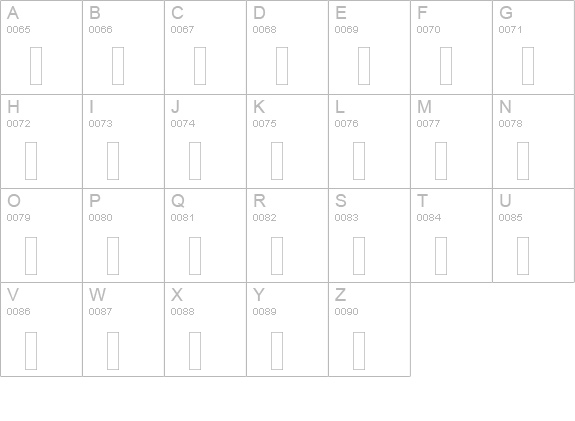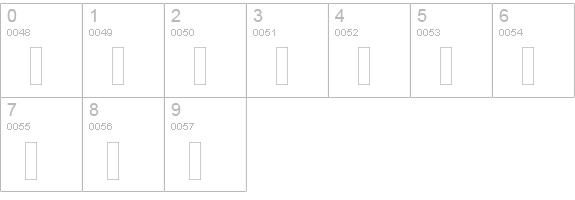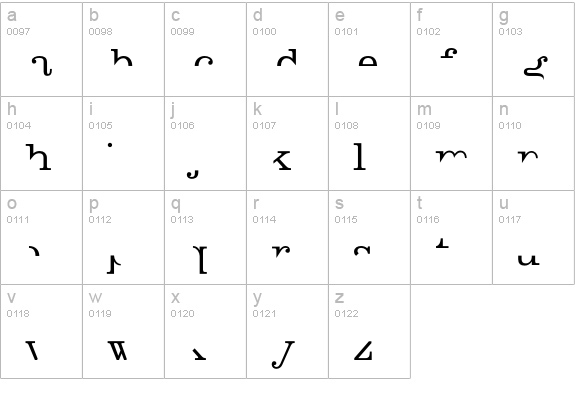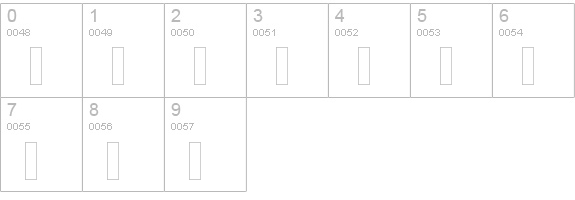
Canyou Font Details
Canyou font is a versatile and modern typeface that exudes sophistication and elegance. With its sleek lines and sleek design, it is perfect for a wide range of design projects, from branding to editorial design. This font effortlessly combines classic elements with a contemporary twist, making it a standout choice for both print and digital applications. What's even better is that Canyou font is available for free download at FontsMarket.com. This means that you can easily access this high-quality font and elevate your designs without any cost. Don't miss out on this opportunity to enhance your projects with the stylish and professional Canyou font - download it now and take your design to the next level.